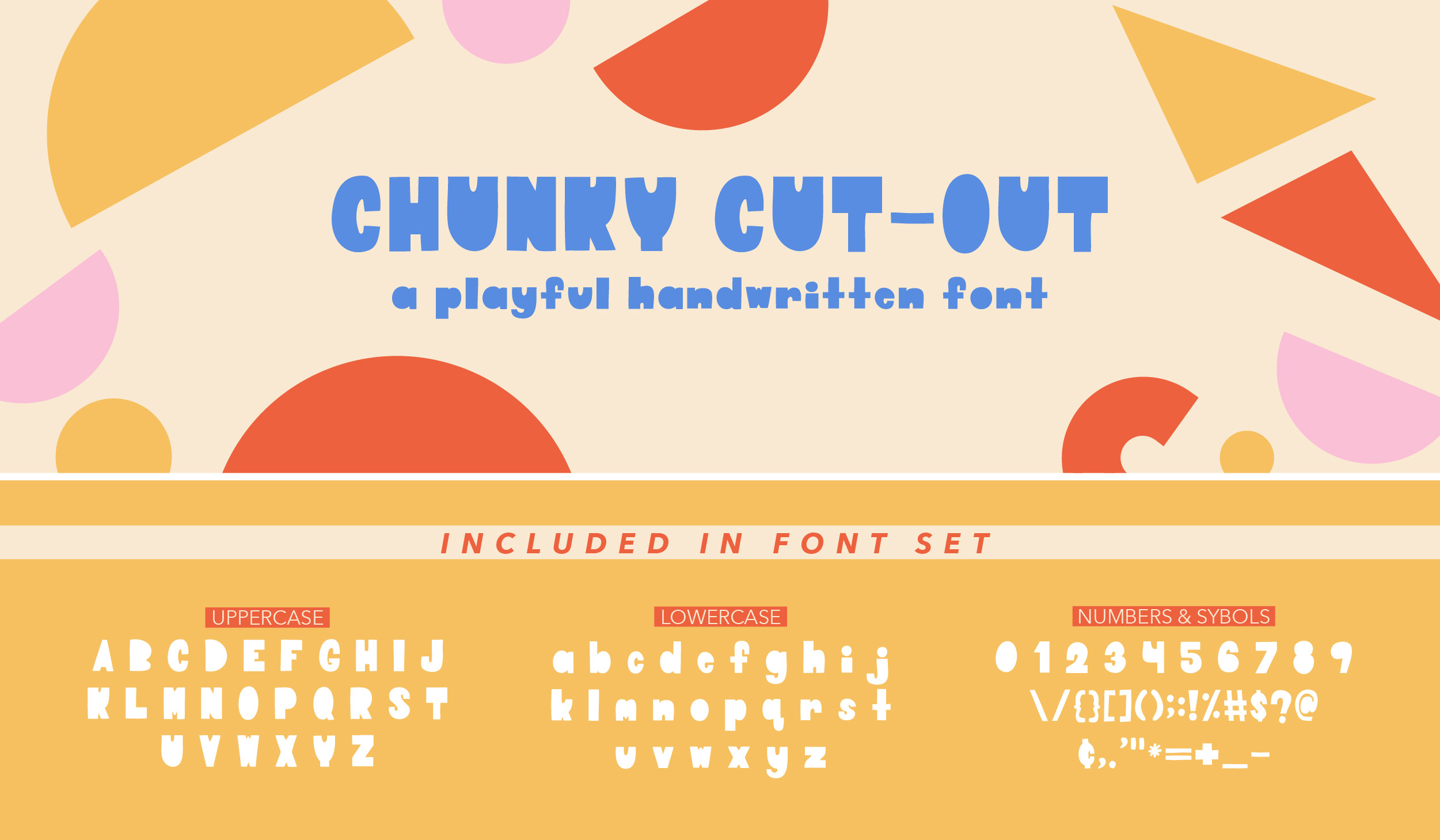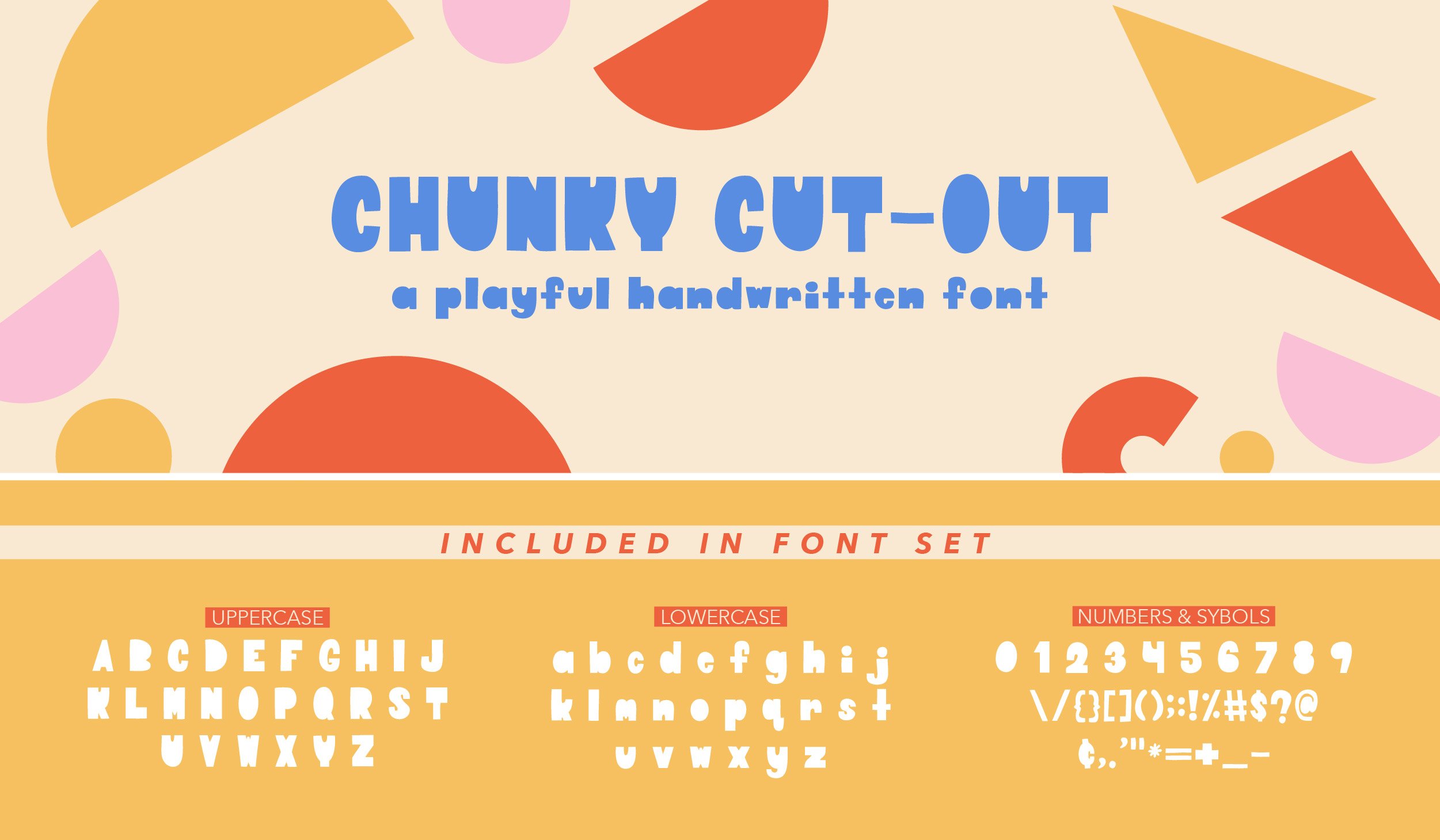
Chunky Cut-Out | A Playful Handwritten Font
Introducing "Chunky Cut-Out," a playful hand-lettered font...I can't wait to see the fun projects you will create!